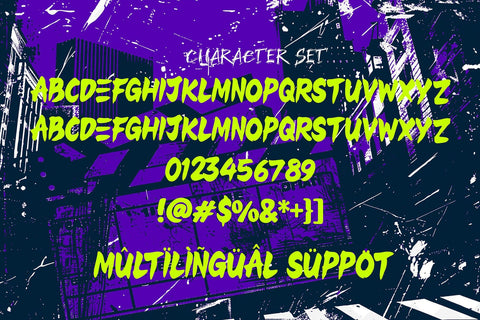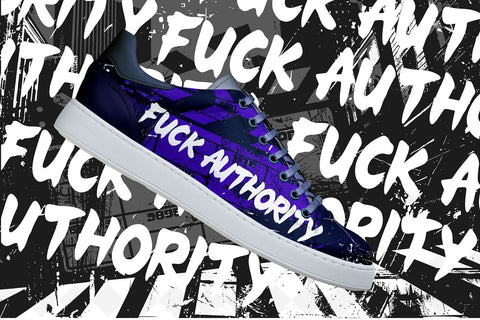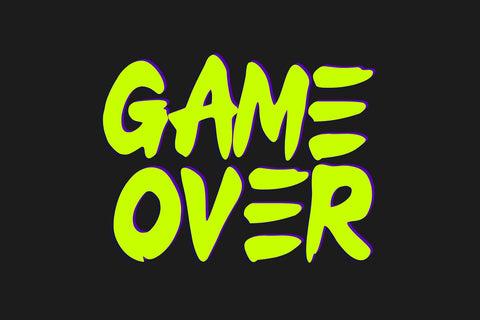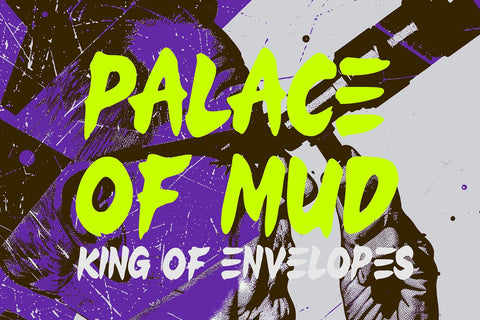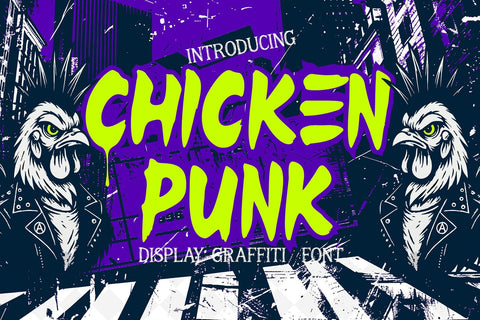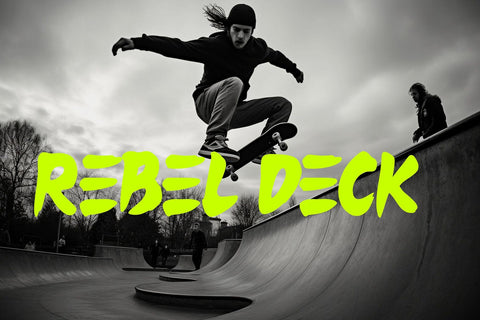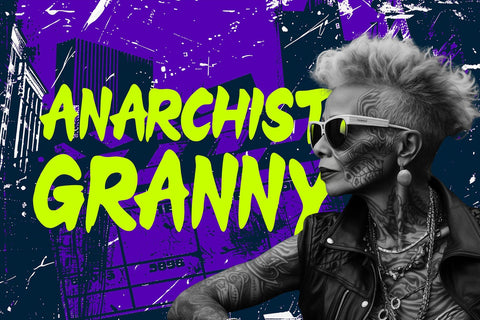
Chicken Punk Bold Graffiti Display font
Chicken Punk is a bold graffiti display font that combines the raw power of street tagging with the loud attitude of punk culture. Designed for creators who love breaking rules and pushing visual boundaries, this font brings an explosion of energy and authenticity to every project. It’s rebellious, expressive, and built to stand out in a world full of ordinary designs.
Each letter in Chicken Punk is drawn with strong strokes, organic drips, and edgy imperfections — capturing the true essence of hand-painted street graffiti and underground punk posters. This font doesn’t aim to look neat; it aims to make noise. The result is a dynamic, graffiti-inspired style that perfectly represents boldness, chaos, and creative rebellion.
The look of Chicken Punk was inspired by DIY punk zines, street art murals, band flyers, and raw graffiti lettering. Its energetic, messy edges and expressive brush movements make it ideal for projects that demand personality. Whether you’re creating an album cover, event poster, skateboard logo, or streetwear design, Chicken Punk instantly brings street culture to life.
The typeface was built for maximum impact, with thick, graffiti-like forms that maintain strong readability. Its drippy texture and rough edges give your text a powerful, handcrafted aesthetic that feels straight from the alley walls of the city.
- Uppercase Characters for bold visual composition
- Numbers and Punctuation for creative flexibility
- Multilingual Support for global use
Perfect for:
- Punk rock and streetwear branding
- Graffiti-style music and event posters
- Skateboard and apparel designs
- Urban merchandise, stickers, and flyers
- Designers who love authentic, expressive street energy
Chicken Punk is built for those who create without limits. It’s chaotic in the best way possible — combining strong legibility with a raw handstyle graffiti aesthetic. The uneven strokes and dripping texture give it a unique character that instantly makes your work look bold and alive. It’s not a neat or polished font — it’s gritty, aggressive, and full of movement.
Whether you’re designing for music, fashion, or creative events, Chicken Punk brings attitude to your text and turns it into a visual shout of rebellion. It works beautifully on both digital and print layouts, carrying the true essence of underground culture wherever it’s used.
If your goal is to make your designs scream with energy, Chicken Punk is the font you need. Loud, fearless, and full of spirit — it’s pure street chaos in typographic form.